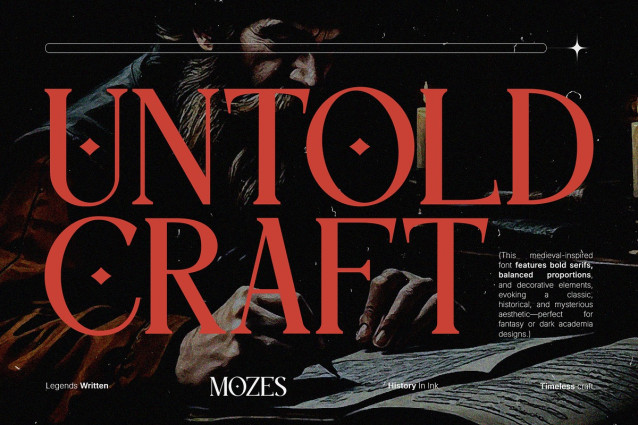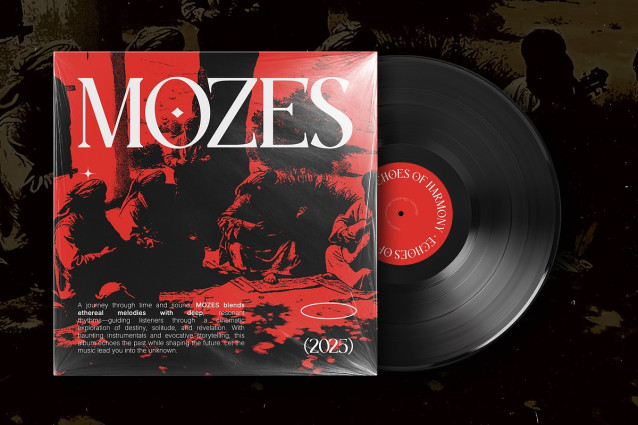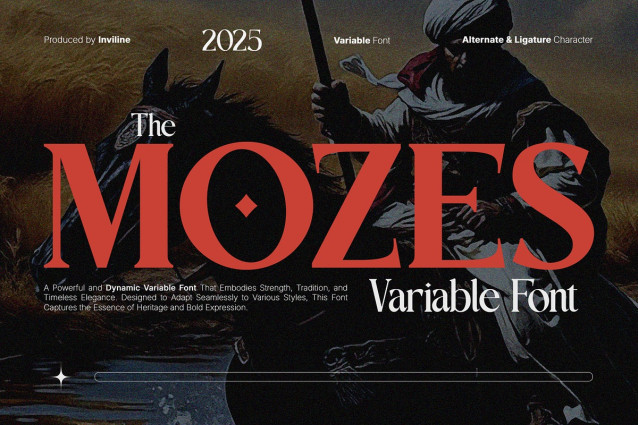
Mozes Font Family
Mozes Font Family a dynamic and powerful Variable serif font. Designed for 2025, Mozes blends classic beauty with the strength of modern expression. Highly adaptable to various styles, Mozes captures the essence of heritage and bold expression. Complete with alternate characters and ligatures, Mozes offers exceptional flexibility for your design projects. More than just a font, it is a statement of elegant and memorable style.
Experience the power of Mozes, a variable font that puts you in control. Adjust the weight, width, and other aspects to perfectly match your design aesthetic. This flexibility saves you time and eliminates the need for multiple font files, streamlining your workflow